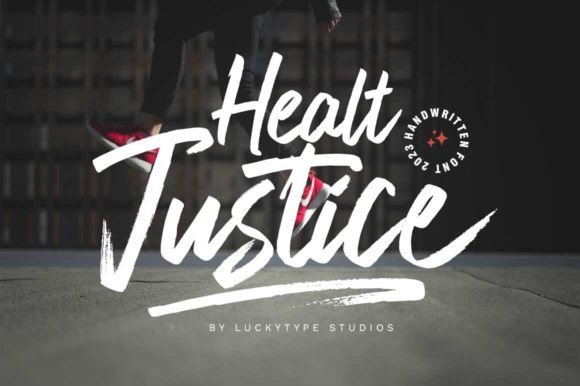
Step into the world of Healt Justice, a bold and dynamic script font that will make your designs stand out from the crowd. With its contemporary design approach and naturally handcrafted feel, Healt Justice is the font you've been looking for to create awe-inspiring titles and designs.
Picture this: a clothing line that speaks volumes with Healt Justice gracing its designs, capturing the essence of individuality and style. Or envision an invitation that oozes elegance and charm, with Healt Justice adding a touch of sophistication to every word. Book titles come alive with Healt Justice, drawing readers into a world of adventure and intrigue.
But Healt Justice's versatility doesn't stop there. Picture a stationery design that captivates the senses, with Healt Justice's graceful strokes adding a touch of whimsy and delight. Quotes take on a whole new meaning when penned in Healt Justice, their messages resonating with power and inspiration. Brands and logos gain a distinct identity, exuding confidence and professionalism with Healt Justice at their core.
Greeting cards transformed into works of art, each word dancing across the page in Healt Justice's unique style. T-shirts become walking statements, expressing individuality and creativity with Healt Justice emblazoned across them. Packaging designs take on a new dimension, with Healt Justice's bold strokes creating a visual symphony. And posters become masterpieces, captivating audiences with Healt Justice's commanding presence.
With Healt Justice, you have the power to make your designs shine. Its multilingual support ensures that your message reaches a global audience, while its upper and lower case letters, numbers, punctuation, ligatures, and swashes provide endless creative possibilities. Unleash your imagination and let Healt Justice guide you to design greatness.
Healt Justice: The Font That Inspires, Empowers, and Captivates. Your designs deserve the best - give them the Healt Justice treatment today!